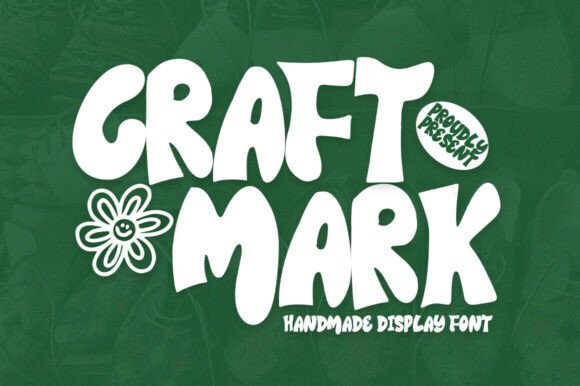
Craft Mark Font: Adding a Touch of Whimsy to Your Designs
In the world of typography, fonts play a crucial role in conveying the tone and personality of a brand or design. When it comes to creating a cheerful and friendly vibe, the Craft Mark font is an excellent choice. This playful, handmade display font is perfect for designers looking to add a touch of whimsy to their projects. In this article, we’ll dive into the features and benefits of Craft Mark, and explore how it can elevate your designs.
What is Craft Mark Font?
Craft Mark is a playful, handmade display font that boasts bold, rounded letterforms and quirky shapes. Its casual, fun, and approachable design makes it ideal for creative projects that require a personal touch. The font’s hand-drawn style gives it a unique, natural look that’s perfect for designers looking to add a human touch to their work.
Key Features of Craft Mark Font
- Bold and Rounded Letterforms: Craft Mark’s letterforms are designed to be bold and rounded, giving them a friendly and approachable feel.
- Quirky Shapes: The font features quirky shapes that add to its playful and whimsical nature.
- Hand-Drawn Style: Craft Mark’s hand-drawn style gives it a unique, natural look that’s perfect for creative projects.
- Slightly Irregular Strokes: The font’s slightly irregular strokes add to its natural and authentic look.
Use Cases for Craft Mark Font
Craft Mark is a versatile font that can be used in a variety of creative projects. Here are some use cases where Craft Mark shines:
- Posters: Craft Mark’s bold and playful design makes it perfect for posters that require a fun and attention-grabbing headline.
- Packaging: The font’s quirky shapes and hand-drawn style make it ideal for packaging designs that require a personal touch.
- Logos: Craft Mark’s unique design makes it perfect for logos that require a playful and approachable feel.
- Children’s Books: The font’s whimsical nature makes it perfect for children’s books that require a fun and engaging design.
- Social Media Graphics: Craft Mark’s bold and playful design makes it perfect for social media graphics that require a fun and attention-grabbing headline.
- DIY-Inspired Branding: The font’s hand-drawn style and quirky shapes make it perfect for DIY-inspired branding that requires a personal touch.
Benefits of Using Craft Mark Font
Using Craft Mark font offers several benefits, including:
- Unique Design: Craft Mark’s unique design sets it apart from other fonts, making it perfect for designers looking to add a personal touch to their work.
- Improved Readability: The font’s bold and rounded letterforms make it easy to read, even at smaller sizes.
- Flexibility: Craft Mark is a versatile font that can be used in a variety of creative projects.
- Time-Saving: The font’s pre-designed letterforms and shapes save designers time and effort, allowing them to focus on other aspects of their project.
Tips for Using Craft Mark Font
Here are some tips for using Craft Mark font effectively:
- Use it for Headlines: Craft Mark’s bold and playful design makes it perfect for headlines that require a fun and attention-grabbing font.
- Pair it with Other Fonts: Craft Mark can be paired with other fonts to create a unique and visually appealing design.
- Experiment with Colors: The font’s playful design makes it perfect for experimenting with different colors and color combinations.
- Use it for Branding: Craft Mark’s unique design makes it perfect for branding projects that require a personal touch.
In conclusion, Craft Mark font is a playful, handmade display font that’s perfect for designers looking to add a touch of whimsy to their projects. Its bold, rounded letterforms and quirky shapes make it ideal for creative projects that require a personal touch. With its unique design, improved readability, flexibility, and time-saving features, Craft Mark is a great choice for designers looking to elevate their designs.
- What is Craft Mark font? Craft Mark is a playful, handmade display font that boasts bold, rounded letterforms and quirky shapes.
- What is Craft Mark font used for? Craft Mark is perfect for creative projects that require a personal touch, such as posters, packaging, logos, children’s books, social media graphics, and DIY-inspired branding.
- Is Craft Mark font easy to read? Yes, Craft Mark’s bold and rounded letterforms make it easy to read, even at smaller sizes.